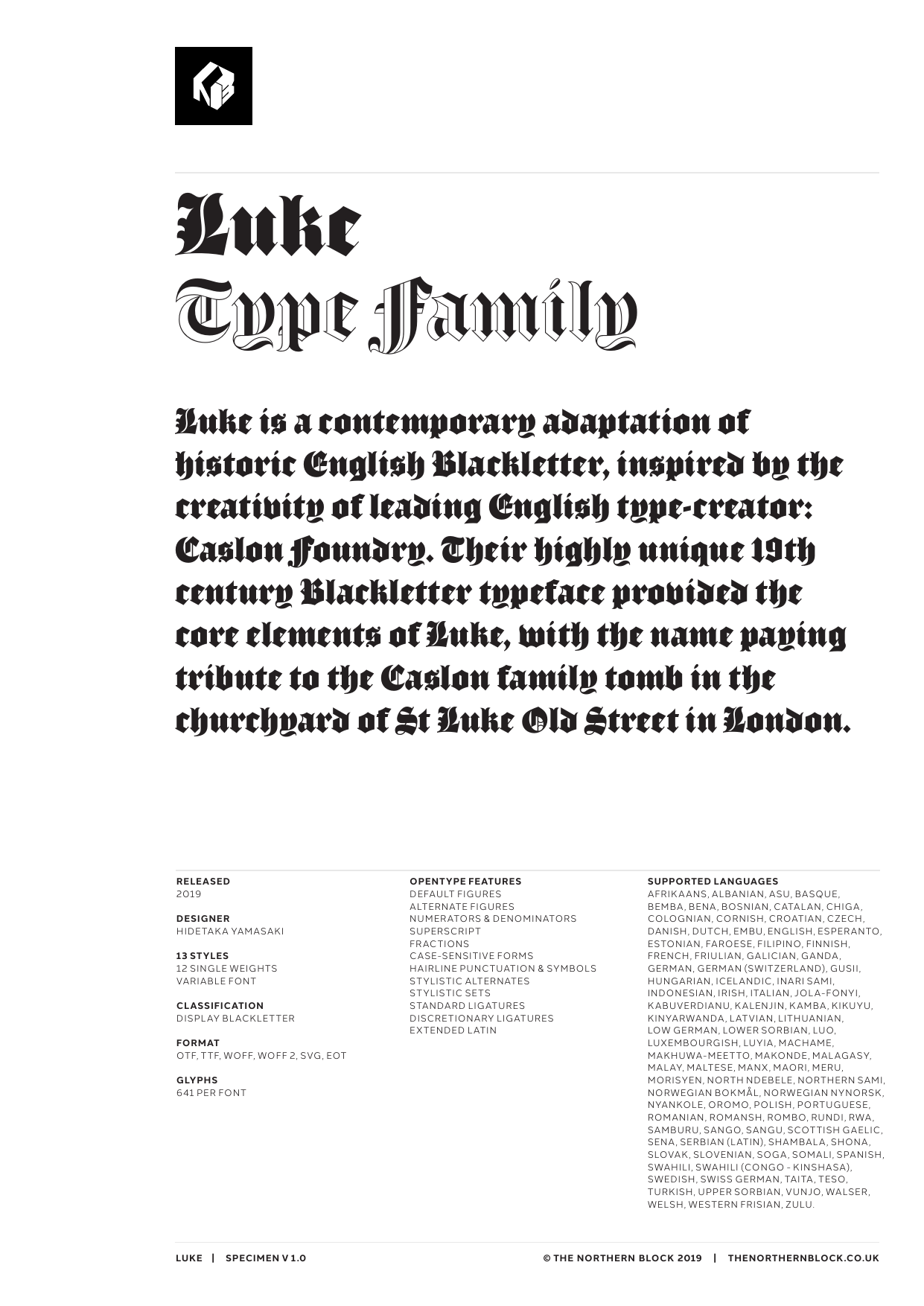
Luke Collection
Luke
Thin100 Thin200 Thin300 Thin400 Medium100 Medium200 Medium300 Medium400 Thick100 Thick200 Thick300 Thick400Luke is a contemporary adaptation of historic English Blackletter, inspired by the creativity of leading English type-creator: Caslon Foundry. Their highly unique 19th century Blackletter typeface provided the core elements of Luke, with the name paying tribute to the Caslon family tomb in the churchyard of St Luke Old Street in London. This modern and versatile type family offers a wide range of styles — from thin to thick contours, and with half-filling to complete - allowing it to work best for both text and display purposes.
Details include twelve styles and 641 glyphs per font. OpenType features include superscript, denominators, numerators, scientific inferiors, ordinals, stylistic alternatives, case-sensitive forms, fractions, contextual alternates and discretionary ligatures. Luke supports 37 languages, covering South, East and Western Europe.